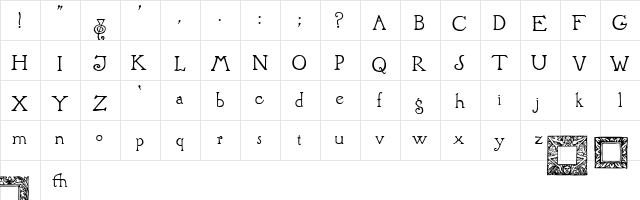
Brandywine!" Regular
Design Context for Brandywine!" Typeface
Brandywine!" offers clean, dependable letterforms without strong stylistic allegiance, making it a practical choice for designers who need flexibility.